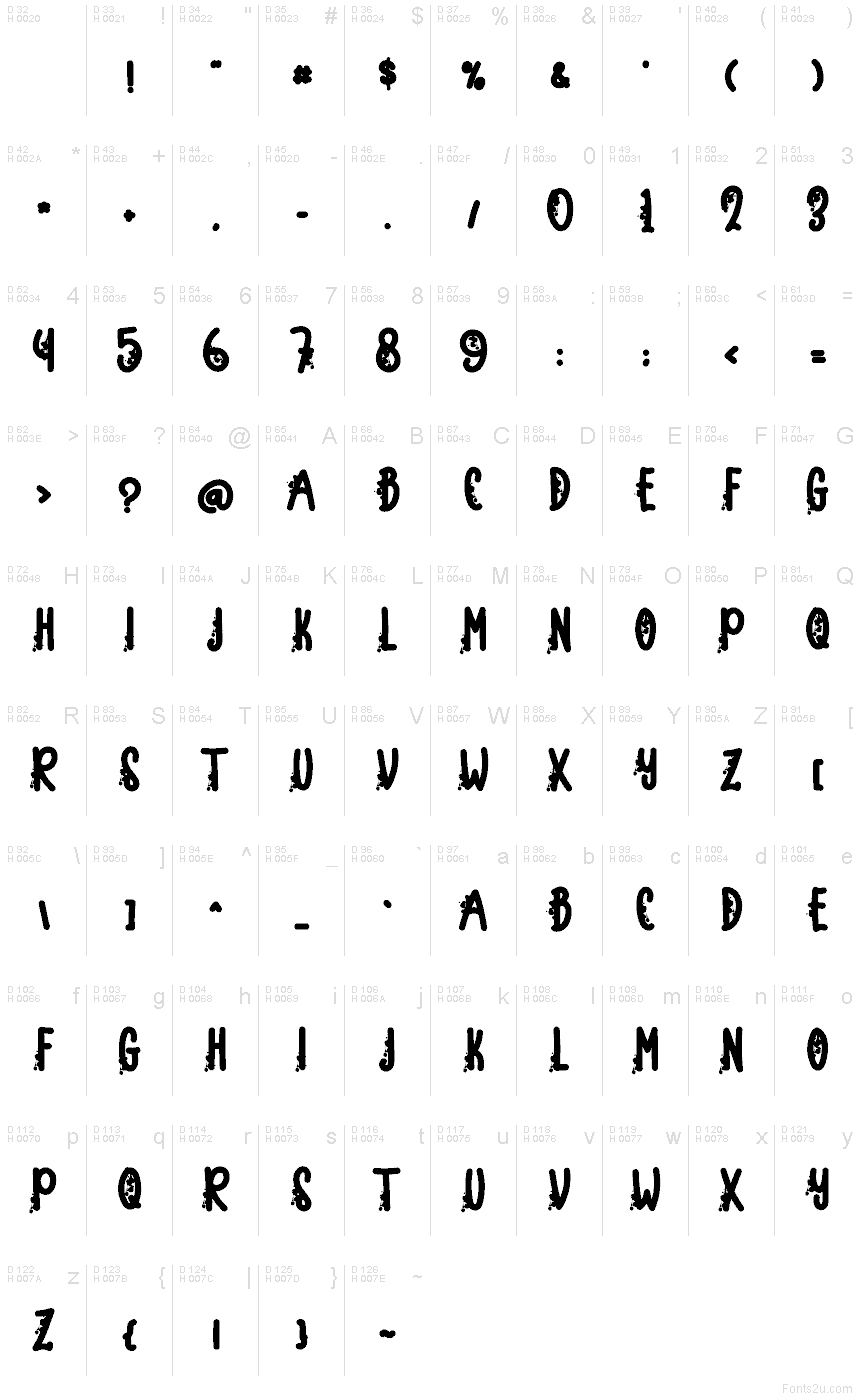
Spooky Nighty
Spooky Nighty font by Bilqis Studio is a free Halloween display font. Rounded letters ooze with inky drips and speckled splats, like fresh paint sliding down a haunted wall. The lively rhythm and chunky weight hold up at big sizes, while the irregular textures add just enough creep without killing readability.
Using Spooky Nighty, your headlines instantly feel candlelit and a little mischievous—great for party flyers, haunted house posters, trick-or-treat bags, social promo graphics, stickers, and YouTube thumbnails. It shines on bold color blocks (think pumpkin orange on coal black). Pair this free font with a clean condensed sans for details and set it large with snug tracking to keep the gooey energy intact.